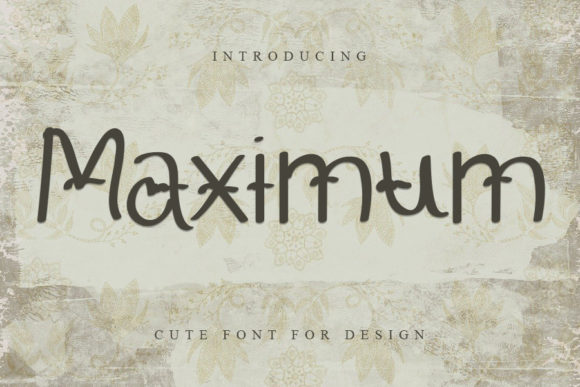
Prepare to be captivated by Maximum, a display font family that takes center stage like a true star! Immerse yourself in a world of modern elegance and sophistication as this font collection transforms your designs into visual masterpieces.
With Maximum, you hold the key to unlocking a treasure trove of exceptional typography. Its characters, meticulously crafted with generous spacing, possess an effortless readability that invites your audience to delve deeper into your creations. Whether you seek to craft captivating headlines, awe-inspiring logos, or compelling marketing materials, Maximum delivers an unforgettable impact.
Discover the limitless possibilities that await you within Maximum's diverse range of styles. From the delicate charm of Maximum Thin to the bold authority of Maximum Black, this font family adapts seamlessly to your every need. Express your creativity with Maximum's Italic variations, adding a touch of graceful movement to your designs. The sky's the limit as you explore the endless combinations that Maximum has to offer.
Embrace Maximum as your ultimate design companion. Its versatility knows no bounds, effortlessly enhancing any project you undertake. Whether you're a seasoned designer or just starting your creative journey, Maximum empowers you to unleash your full potential.
With Maximum, transcend the ordinary and embark on an extraordinary typographic adventure. It's more than just a font; it's an investment in your creative journey. Experience the difference that Maximum can make, and elevate your designs to new heights of brilliance.
Don't settle for the mundane; embrace the extraordinary with Maximum. Let your creativity soar as you craft designs that leave a lasting impression. Your audience awaits the visual symphony that Maximum will orchestrate. Seize this opportunity to make a statement that resonates with impact and individuality.